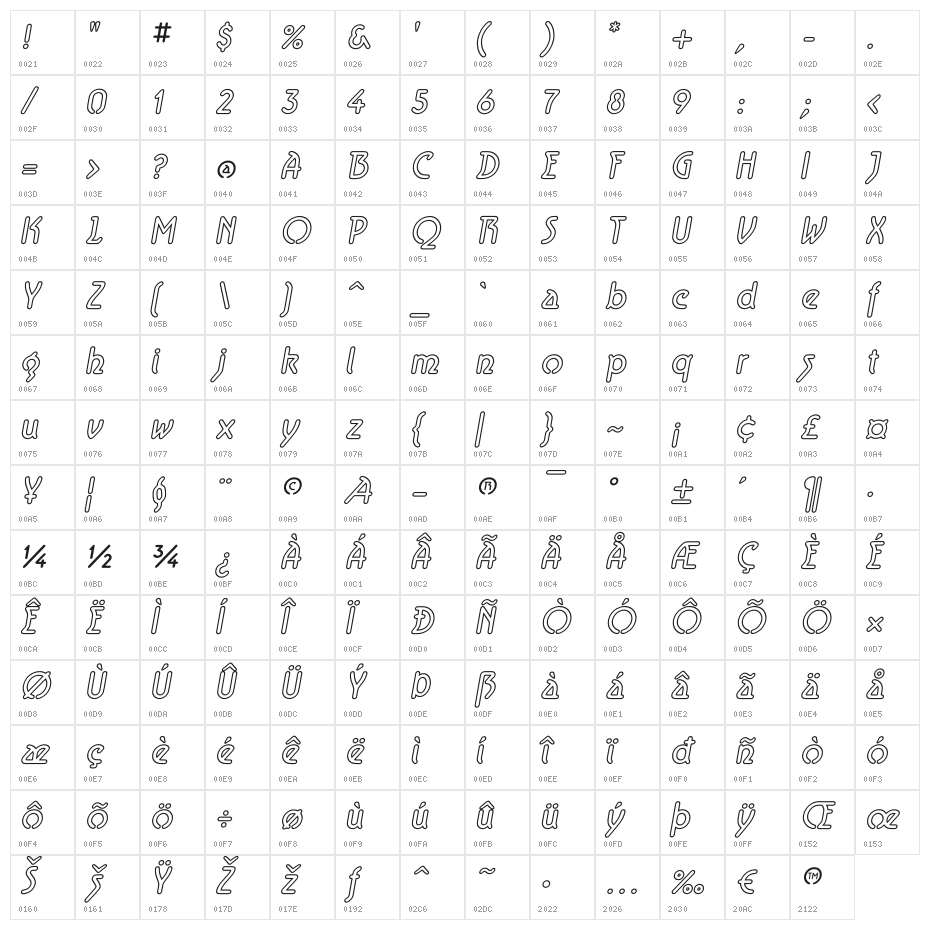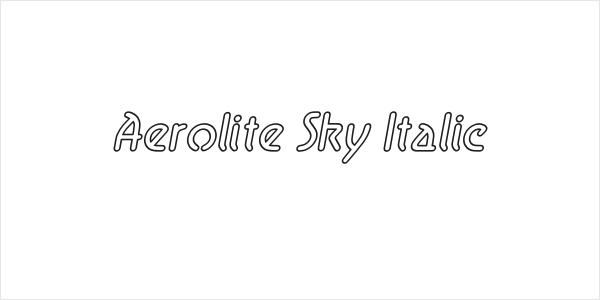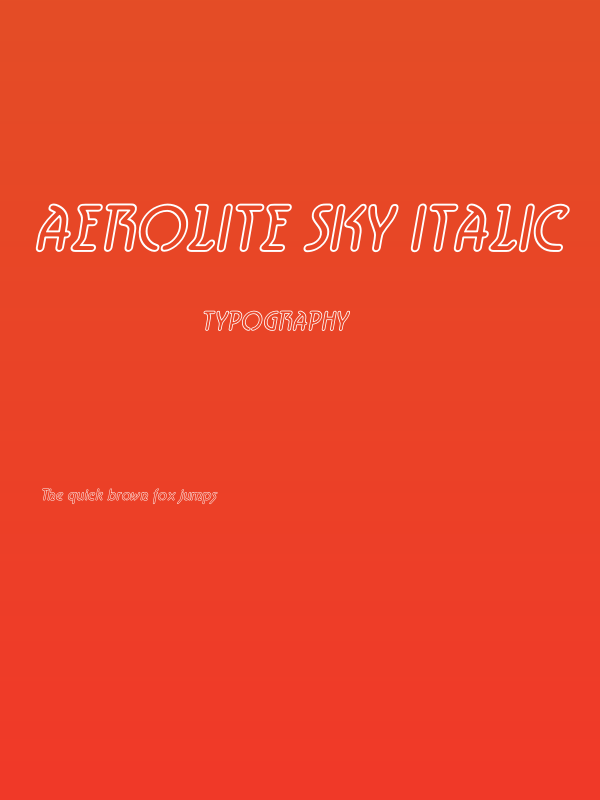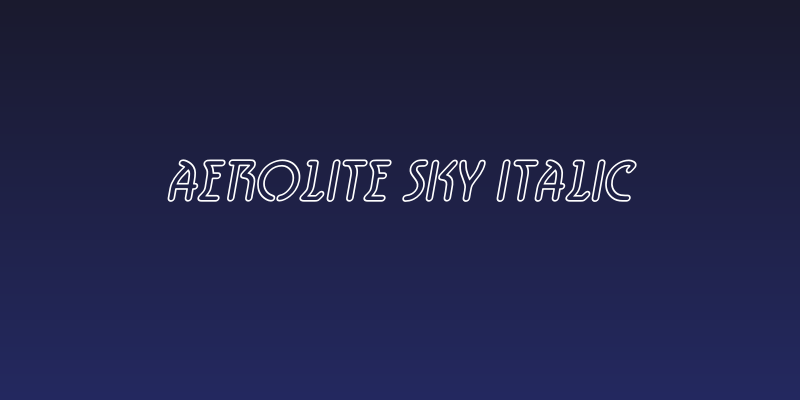
Aerolite Sky Italic Font
Aerolite Sky Italic Description
This font features a playful and dynamic outline style, characterized by its bold, flowing lines that create a sense of movement and energy. The uppercase and lowercase letters are designed with a consistent stroke width, giving the font a cohesive look. The rounded edges and smooth curves add a friendly and approachable feel, while the italic slant enhances its modern and stylish appearance. The numerals and special characters maintain the same lively aesthetic, making the font versatile for various design applications.
| Proposed Projects | Ideal for children's book covers, playful branding, event posters, and creative social media graphics. |